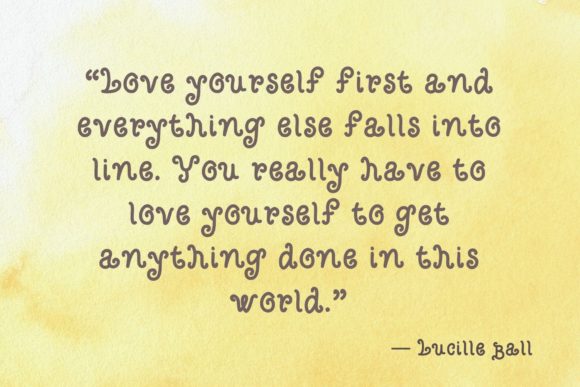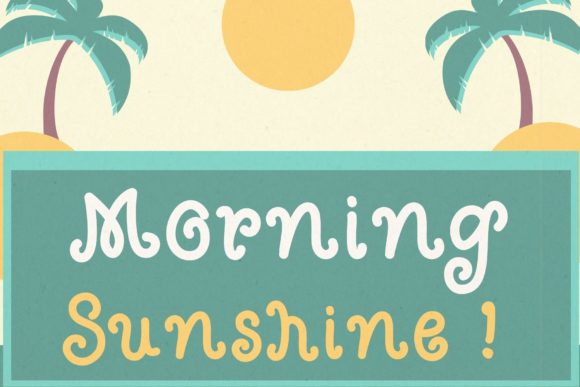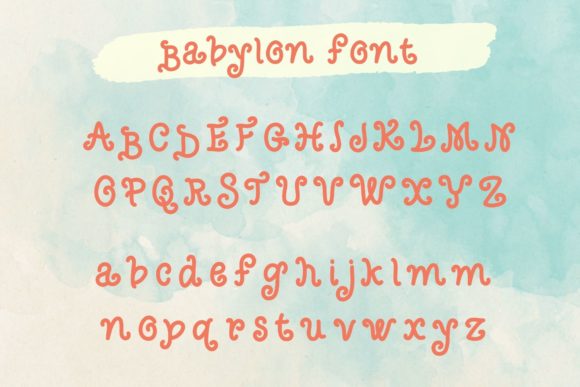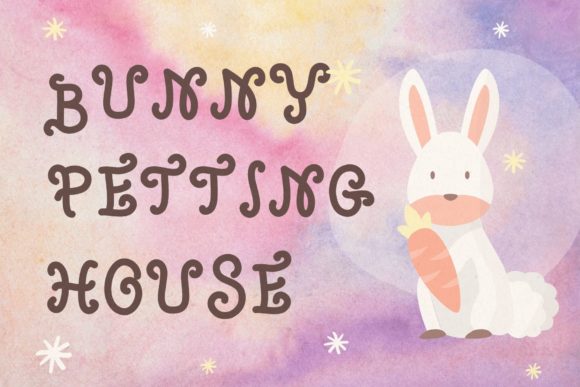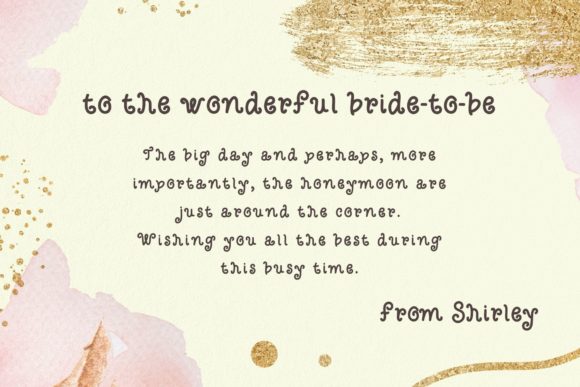
Babylon Font: The Ultimate Choice for Designers and Crafters
In the world of typography, fonts play a crucial role in conveying the tone and personality of a brand or design. Among the numerous fonts available, one that stands out for its unique charm and versatility is the Babylon Font. This bold handwritten font has been carefully crafted to become a true favorite among designers and crafters. In this article, we’ll explore the features and benefits of the Babylon Font, and why it’s an excellent choice for your next design project.
What is Babylon Font?
Babylon Font is a bold handwritten font that exudes a casual charm, making it appear wonderfully down-to-earth, readable, and incredibly versatile. Its unique character is perfect for designers and crafters looking to add a personal touch to their designs. Whether you’re working on a busy background or creating a standalone headline, Babylon Font is sure to make a statement.
Key Features of Babylon Font
- Bold and Handwritten: Babylon Font is a bold handwritten font that adds a touch of personality to any design.
- Casual Charm: Its casual charm makes it perfect for designs that require a down-to-earth and approachable tone.
- Readability: Despite its bold nature, Babylon Font is remarkably readable, making it suitable for use in a variety of contexts.
- Versatility: Babylon Font is incredibly versatile, allowing you to use it in a range of design projects, from headings and titles to body text.
Benefits of Using Babylon Font
So, why should you choose Babylon Font for your design projects? Here are just a few benefits:
- Adds Personality: Babylon Font adds a touch of personality to your designs, setting them apart from more generic fonts.
- Enhances Readability: Its readability makes it perfect for use in designs where text needs to be clear and easy to read.
- Versatile: Babylon Font can be used in a range of design projects, from digital media to print materials.
Design Ideas Using Babylon Font
Now that we’ve explored the features and benefits of Babylon Font, let’s take a look at some design ideas to get you started:
- Headlines and Titles: Use Babylon Font to create bold and eye-catching headlines and titles that grab attention.
- Branding and Logos: Babylon Font is perfect for creating unique and memorable brand identities.
- Social Media Graphics: Add a personal touch to your social media graphics with Babylon Font.
- Invitations and Stationery: Use Babylon Font to create beautiful and unique invitations and stationery.
In conclusion, Babylon Font is an excellent choice for designers and crafters looking for a bold and versatile font that adds a touch of personality to their designs. Its casual charm, readability, and versatility make it perfect for a range of design projects. Whether you’re working on a busy background or creating a standalone headline, Babylon Font is sure to make a statement. So why not give it a try and see how it can elevate your designs?